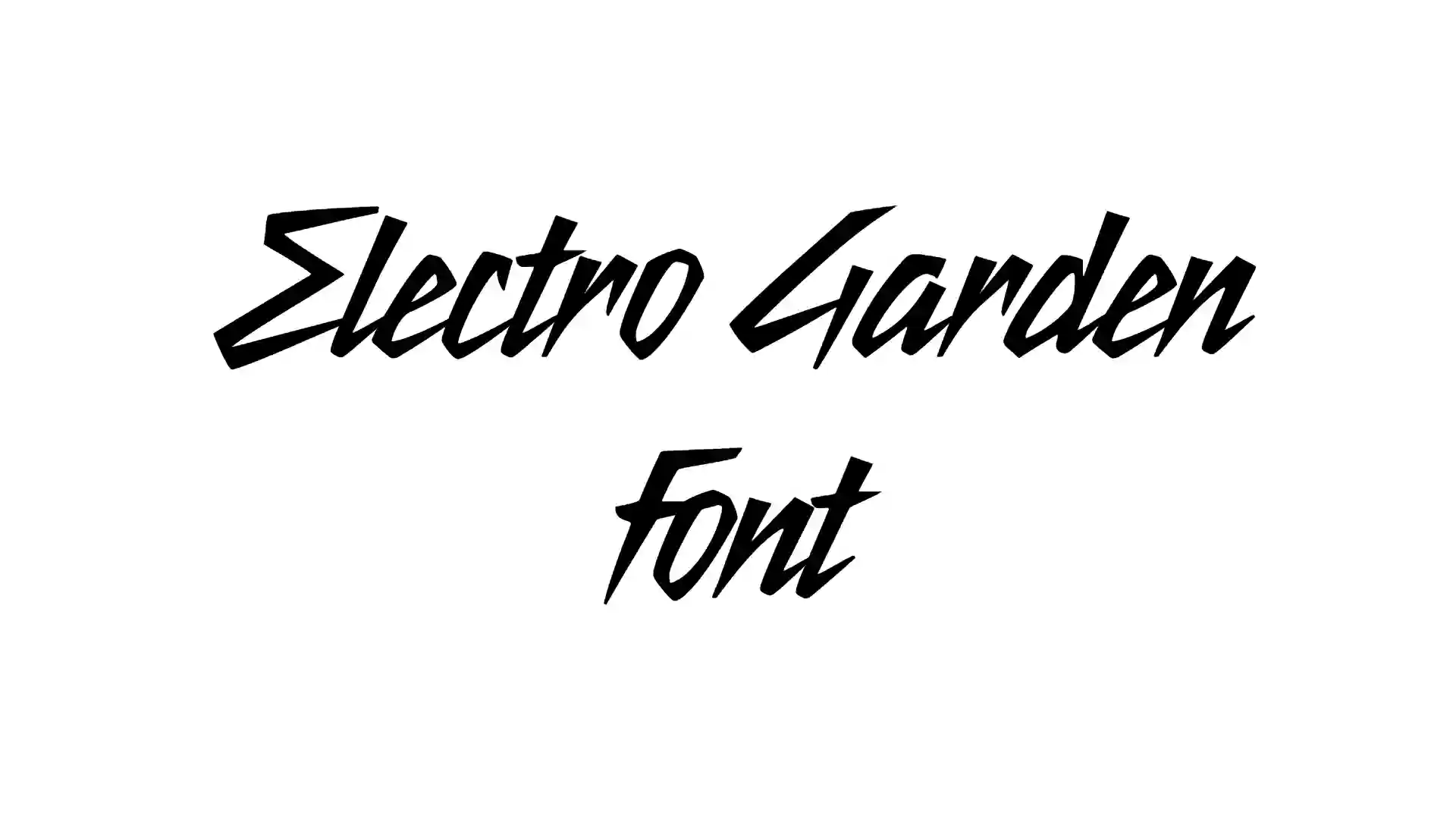
Electro Garden Font
Electro Garden is a script font created by CAT.B. The letters have the smooth movement of real pen lettering, which is why even a single name looks special in it. You can download it for free and test it with your own words in the preview above.
- Designer: CAT.B
What You Can Type With Electro Garden
You get every letter from A to Z in both cases and all the numbers from 0 to 9, which means Electro Garden can handle full sentences, dates and prices. Everyday marks like &, !, ? and @ are there too. Thanks to its accented letters, it also works for Spanish, French, Portuguese and Italian, not just English.
Where Electro Garden Works Best
Think of Electro Garden for wedding invitations, logos and signature-style headings. Script fonts read best in short bursts, so keep it to names, titles and one-line quotes. Skip all caps: script capitals are drawn to start a word, not to fill one.
Does Electro Garden support accented letters?
Yes. Electro Garden includes the accented letters needed for Spanish, French, Portuguese and Italian, so it works for more than just English.